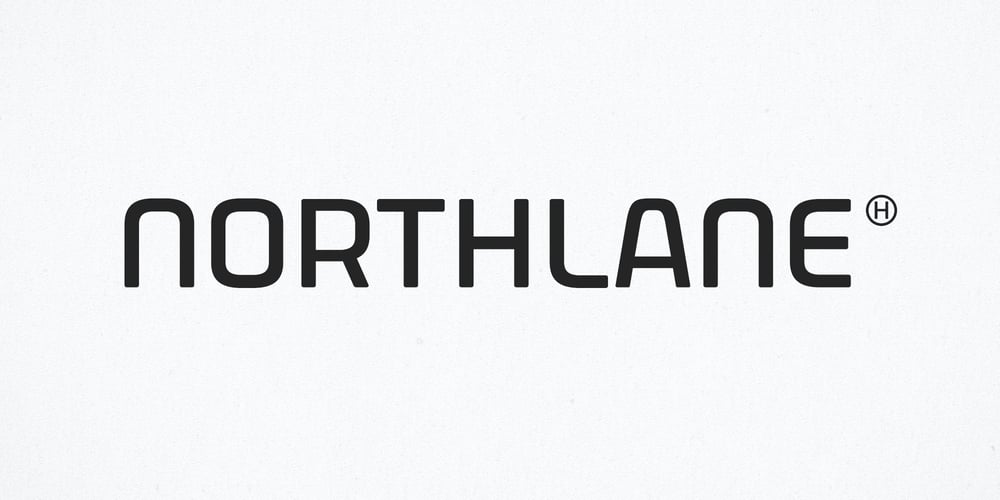
Northlane Font Family was designed by Tulus Driyo and published by Hindia Studio. Northlane contains 2 styles and family package options. Northlane is minimalist font with smooth and elegant rounded edges. This font is projecting modern and futuristic vibes, perfectly suited for graphic design application ranging from editorial and corporate design to web and interaction design.